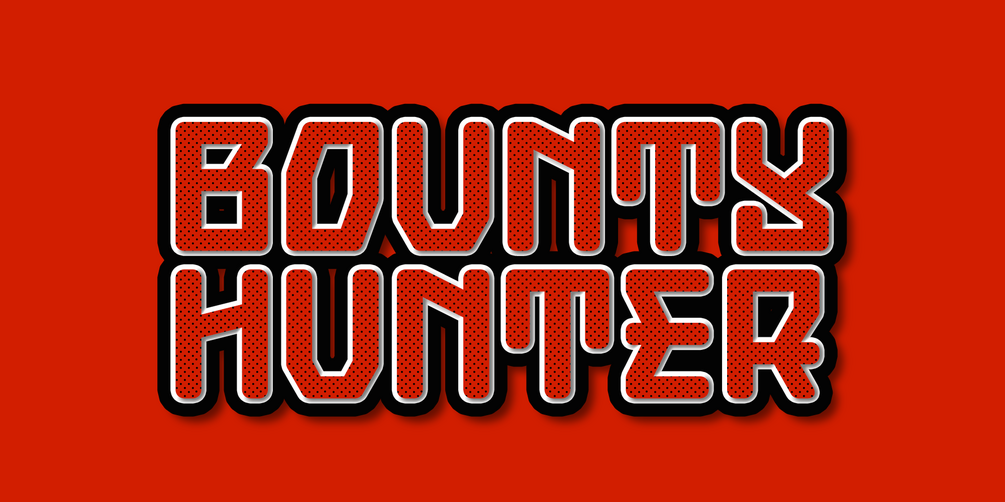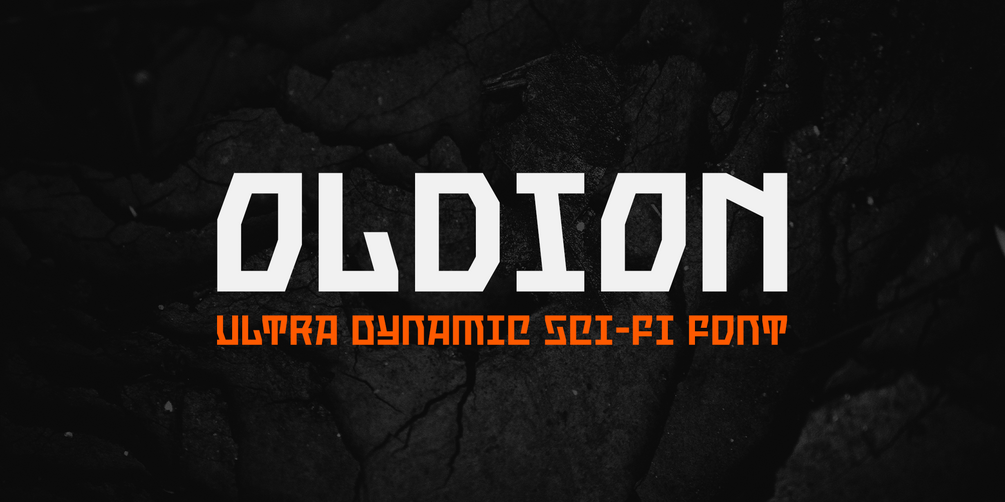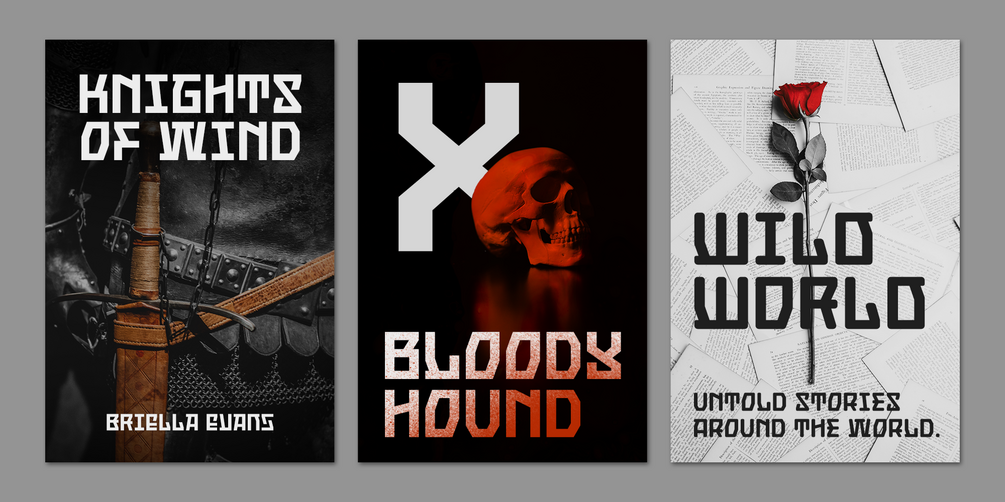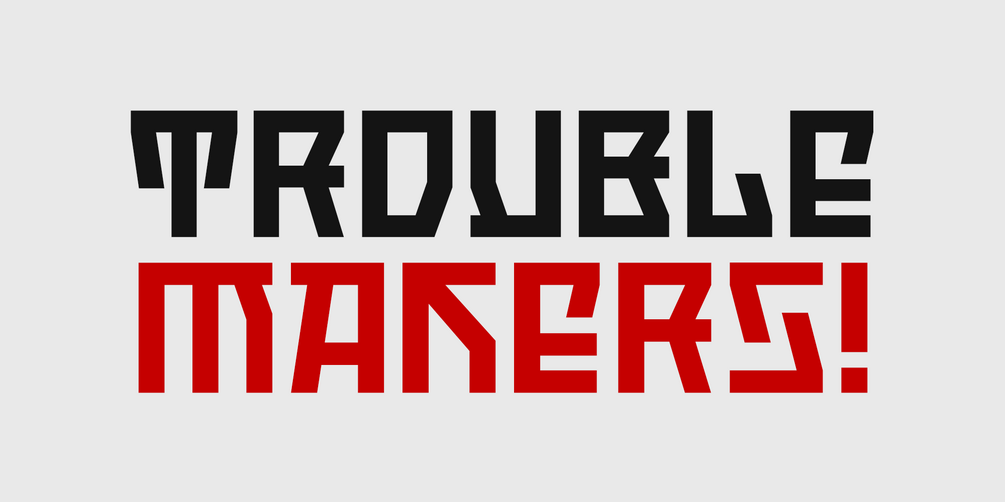
Oldion
Oldion is a captivating display font, draws inspiration from the boundless realms of science fiction and modern technology. With its distinctive and futuristic accents adorning each letter, Oldion breathes life and dynamism into your projects. Available in both regular and rounded styles, infuses a touch of innovation and intrigue into your designs.
Oldion is your ideal choice for a wide range of creative applications, from commanding movie posters and attention-grabbing headlines to captivating packaging and distinctive logotypes.